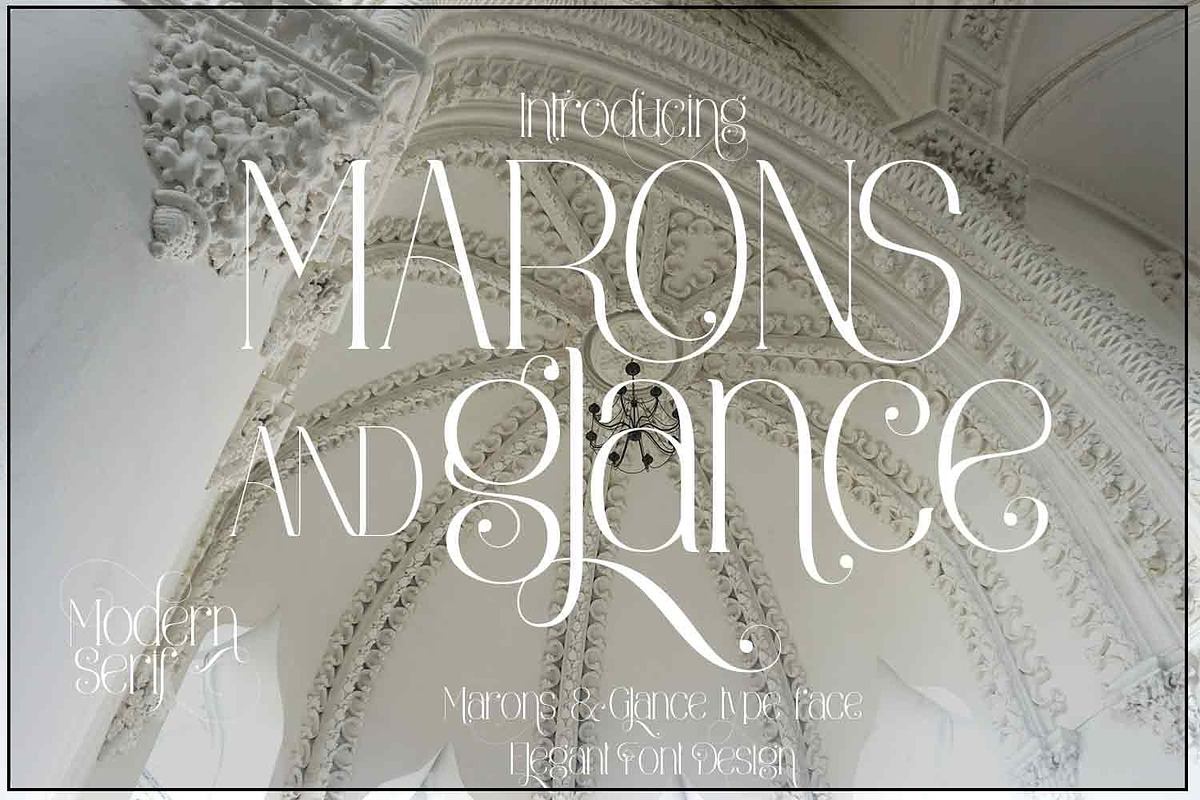
Marons and Glance Font Free Download is a modern and sophisticated typeface designed to add a distinct touch of elegance and personality to your designs. The combination of its sleek, serif-based letterforms with a subtle blend of contemporary design principles makes it ideal for use in branding, luxury packaging, editorial design, and professional advertising.
This typeface harmoniously balances classic typographic techniques with modern sensibilities, making it versatile for a wide array of design applications. Whether used in large headlines or body text, Marons and Glance provides exceptional legibility while maintaining a refined aesthetic. Its character set and attention to kerning and spacing further enhance the overall visual appeal, ensuring consistency and fluidity across different media.
Incorporating this font into your work will elevate your projects by introducing a level of craftsmanship that is both timeless and innovative. It's a font designed to perform well across print and digital platforms, offering flexibility for use in high-end branding, luxury publications, and stylish event invitations.